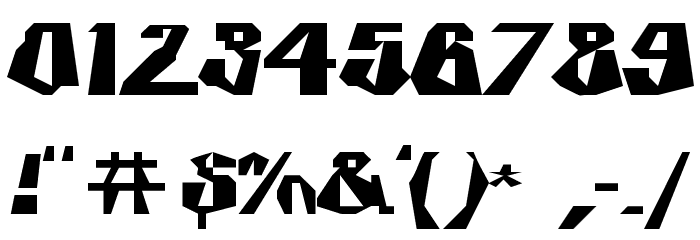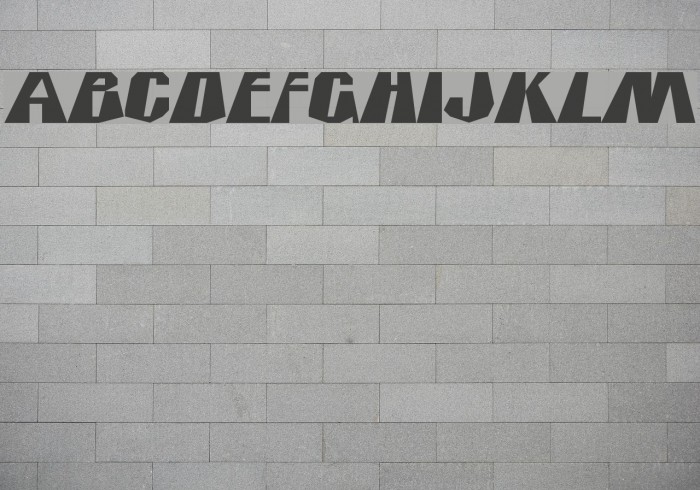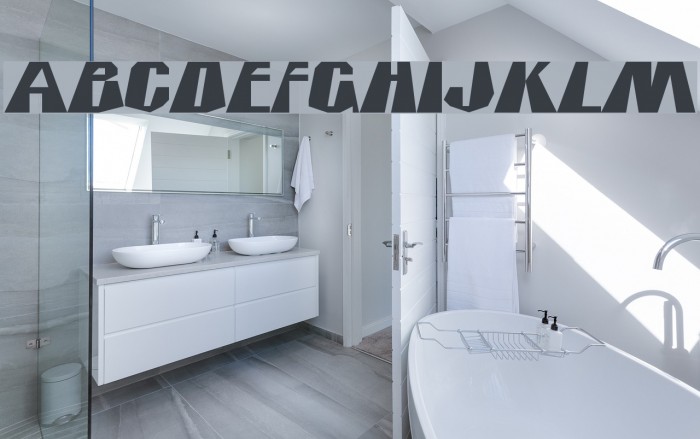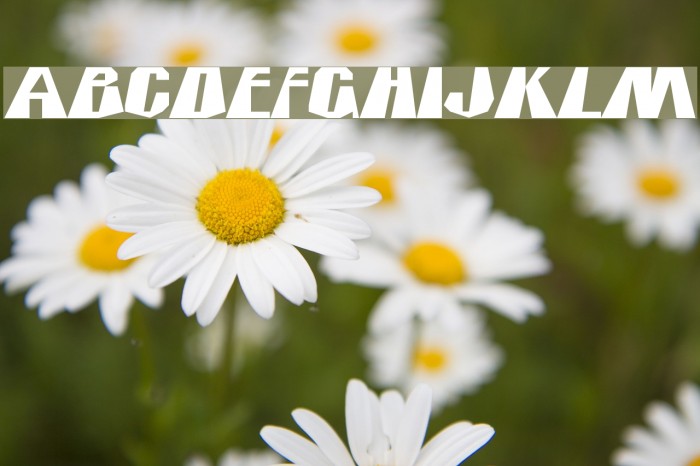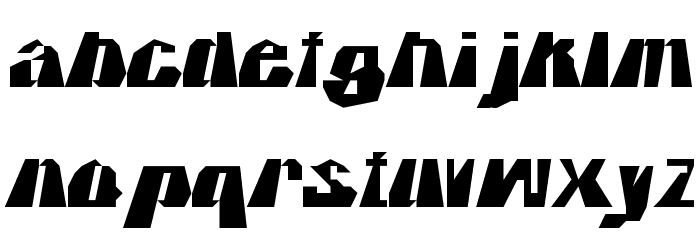
IcicleCountry Font
This font features a bold and angular design, reminiscent of sharp icicles or fractured ice. The characters are heavily stylized with jagged edges and a strong geometric influence, creating a sense of movement and energy. The uppercase letters are particularly striking, with each character appearing as if it has been carved from a block of ice. The lowercase letters maintain this theme, though they are slightly more compact. Numbers and special characters follow the same design principles, ensuring consistency across the font. This unique style is eye-catching and ideal for projects that require a bold, impactful statement.
| Overall Style | Modern, Decorative |
| Proposed Projects | Ideal for winter-themed designs, event posters, or branding that requires a bold, edgy look. |